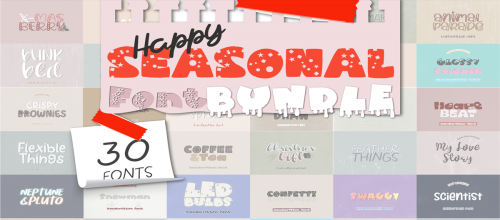
Happy Seasonal Font Bundle – 30 Premium Fonts
Introducing the Happy Seasonal Font Bundle, a curated collection of 30 premium fonts designed to elevate your creative projects. This versatile bundle includes a variety of font styles, from playful scripts to elegant serifs, perfect for any seasonal occasion.
• 30 unique premium fonts
• Variety of styles: script, serif, sans-serif, and display
• Multiple weights and styles available
• Easy to read and visually appealing